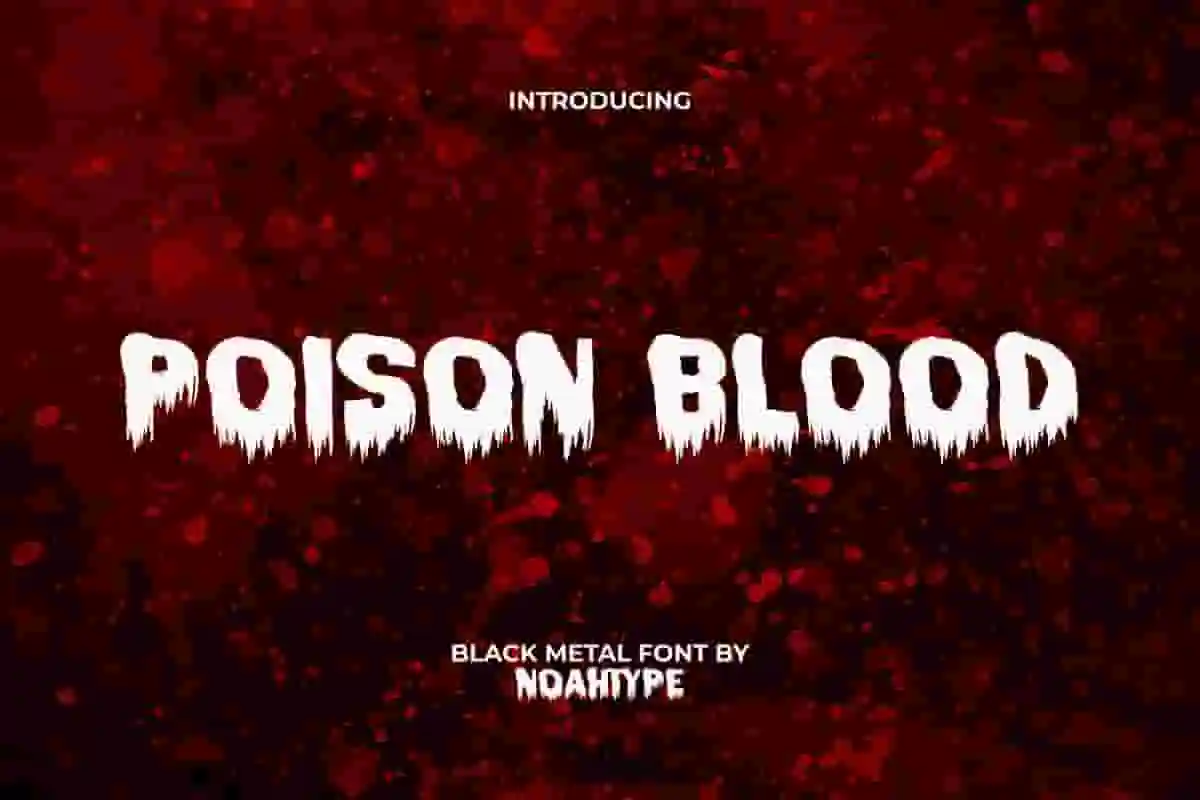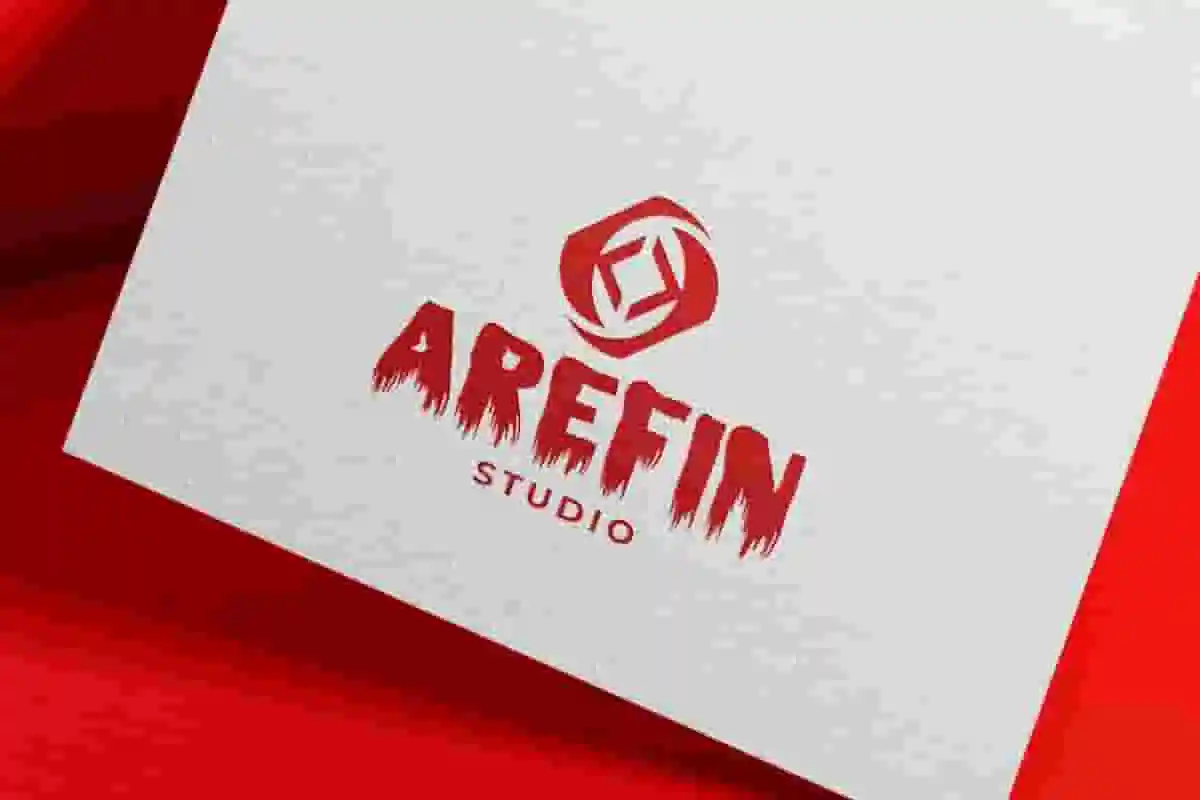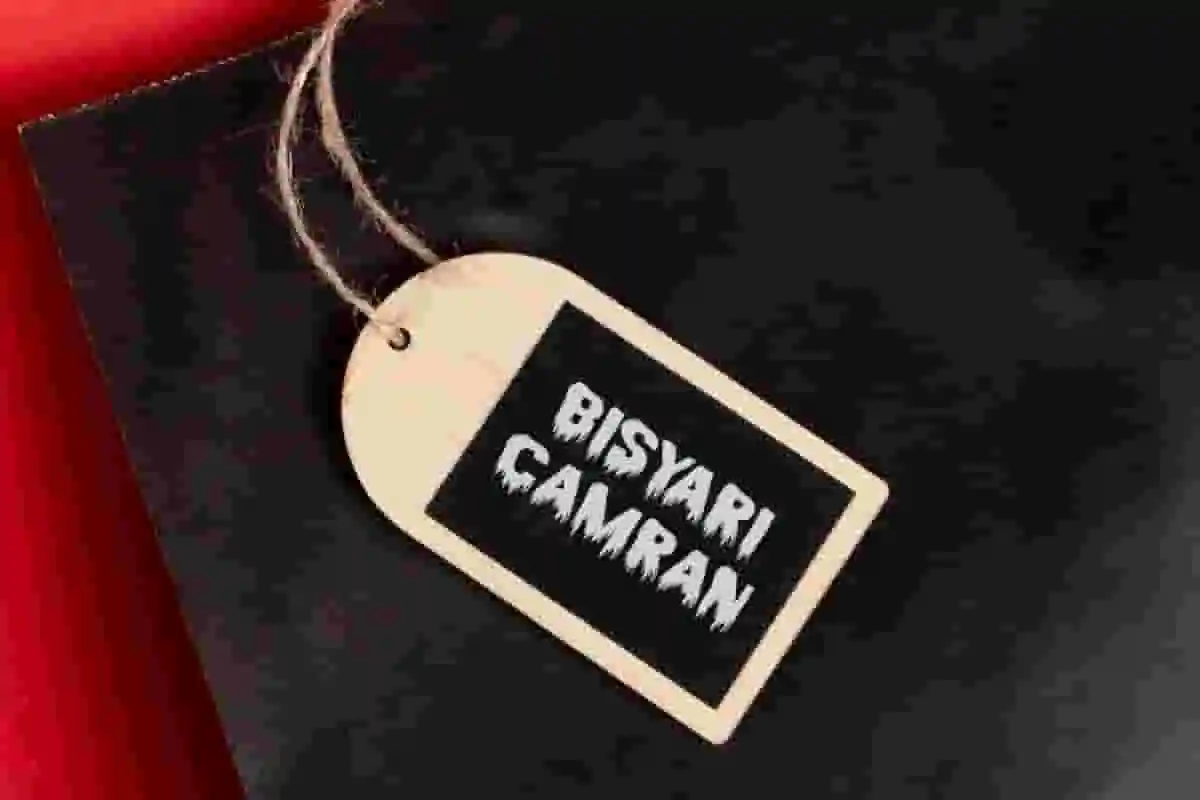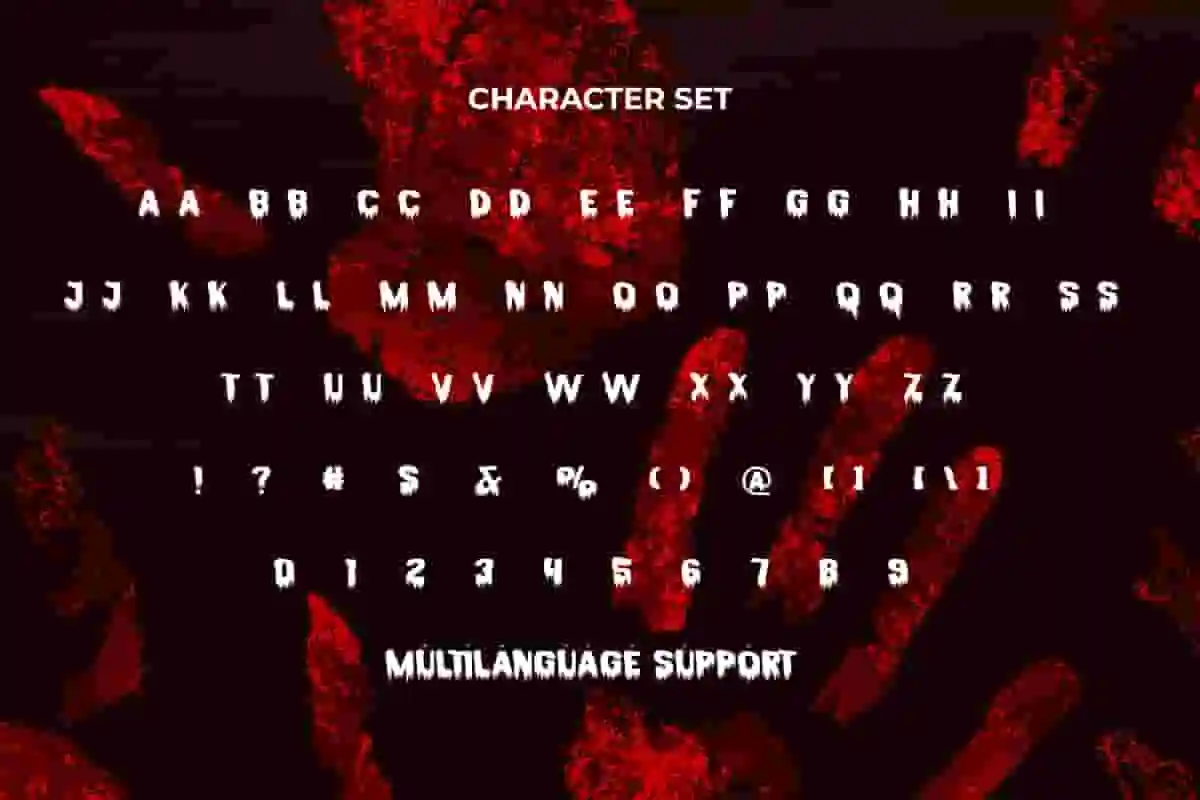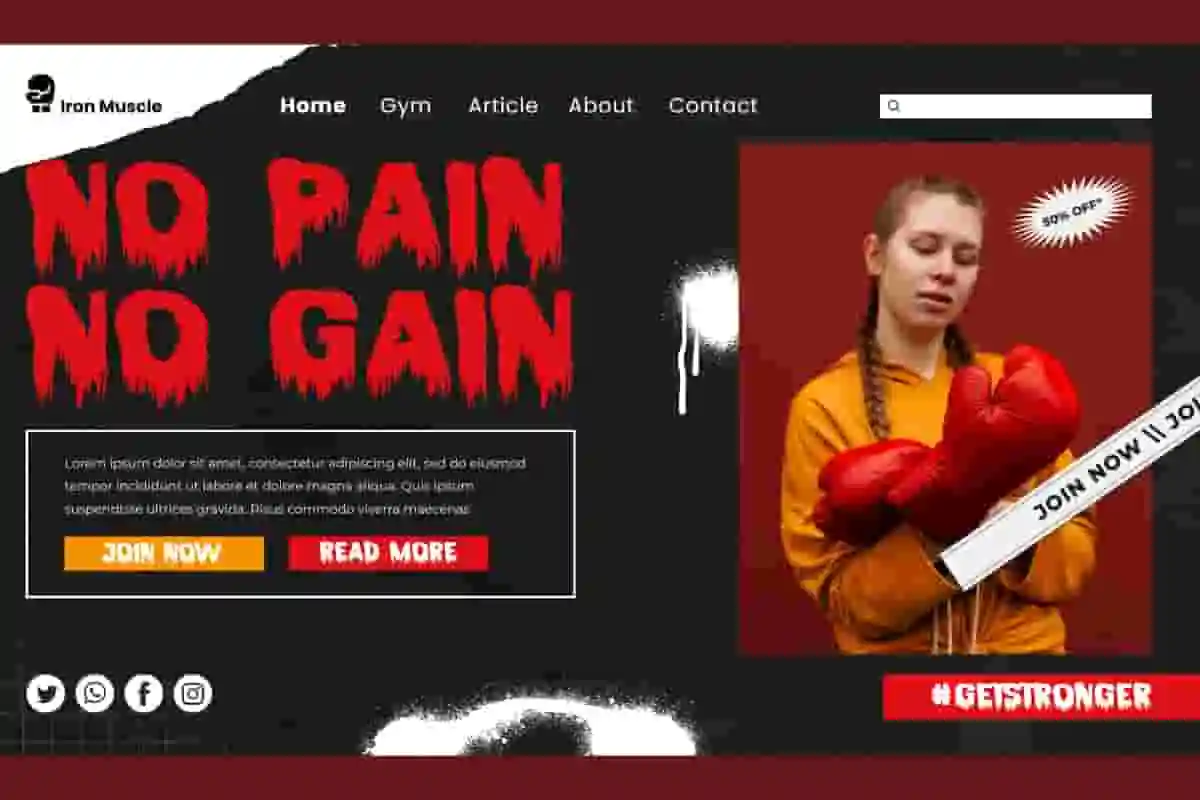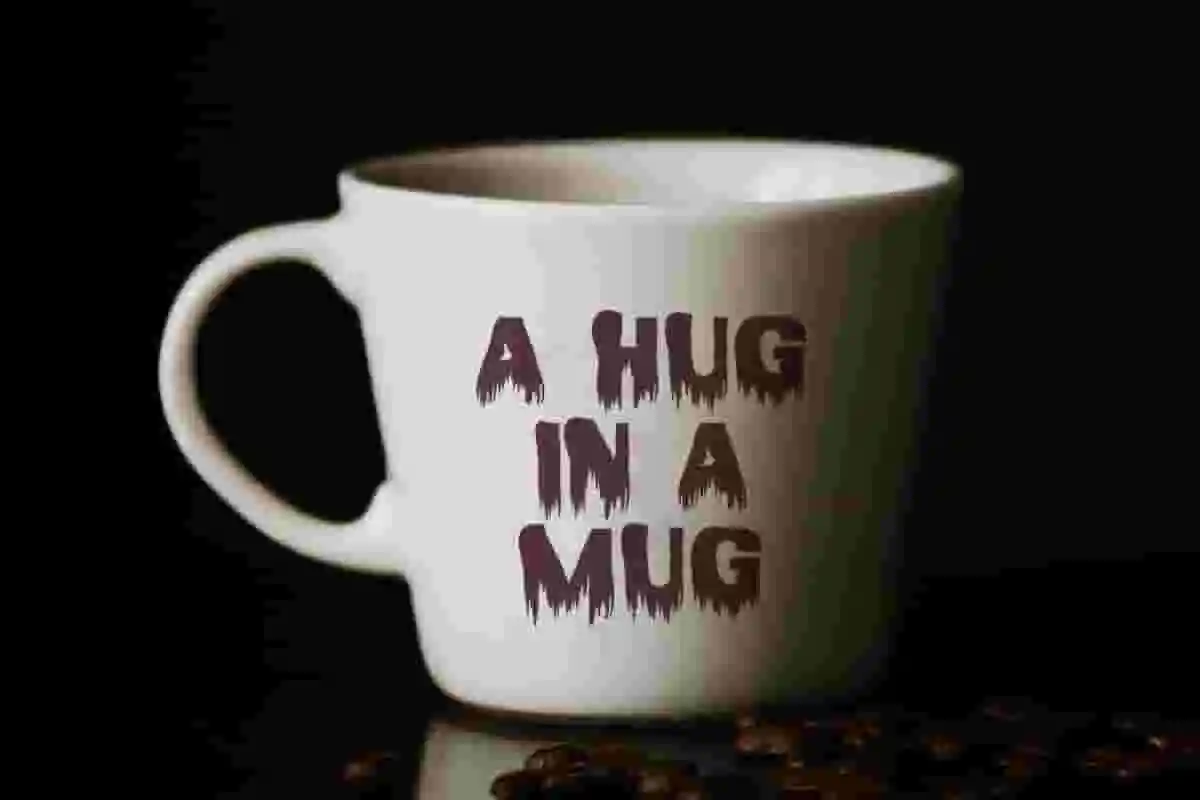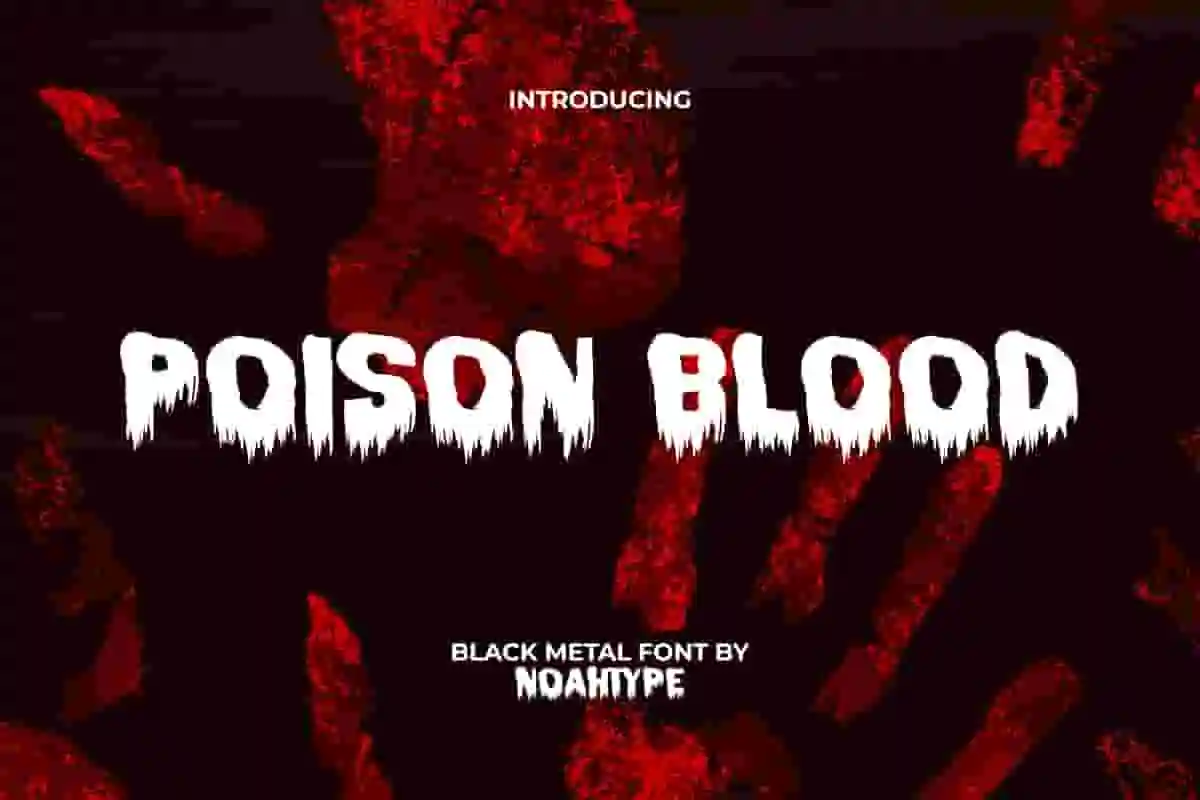
Poison Blood Font is a horror black metal font with, created by NoahType. This font can give a creepy impression through strange liquid seeping like blood from under the letters. It will be perfect for any designs, such as brand image, cover, custom design, invitation, label, marketing material, menu, poster, printing, product packaging, quotes, signage, website, and many more!
Poison Blood Font includes full set of ALL CAPS for Uppercase and Lowercase Basic Characters, Numerals, Punctuation, and Symbol. This font will make your design amazing and also a perfect choice for many industries, such as accessories, advertising, art, café, event or festival, fashion, game, movie, music, printing, publishing, etc.